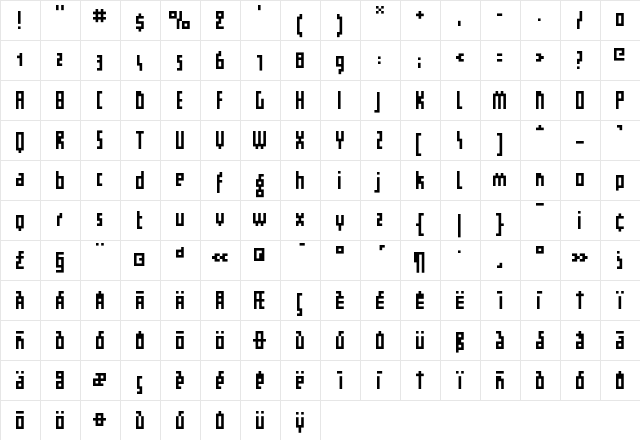
FFNetwork Regular
Design Context for FFNetwork Typeface
FFNetwork is a composed and adaptable typeface that performs quietly and consistently across a wide range of design contexts.